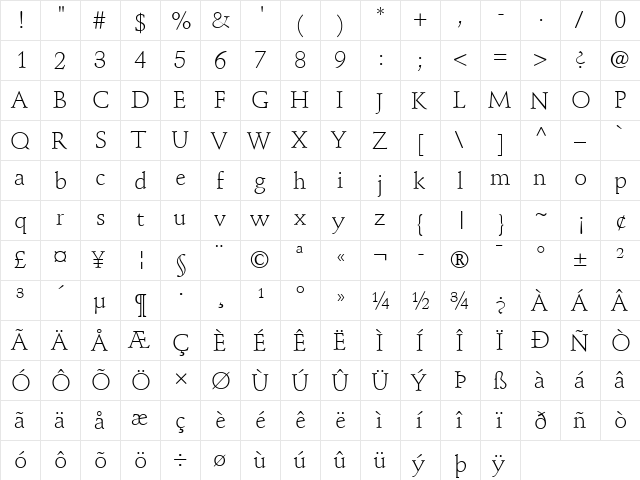
StempelSchneidler LT Light Regular
Design Context for StempelSchneidler LT Light Typeface
StempelSchneidler LT Light offers clean, dependable letterforms without strong stylistic allegiance, making it a practical choice for designers who need flexibility. The delicate stroke weight brings airiness and refinement to layouts.